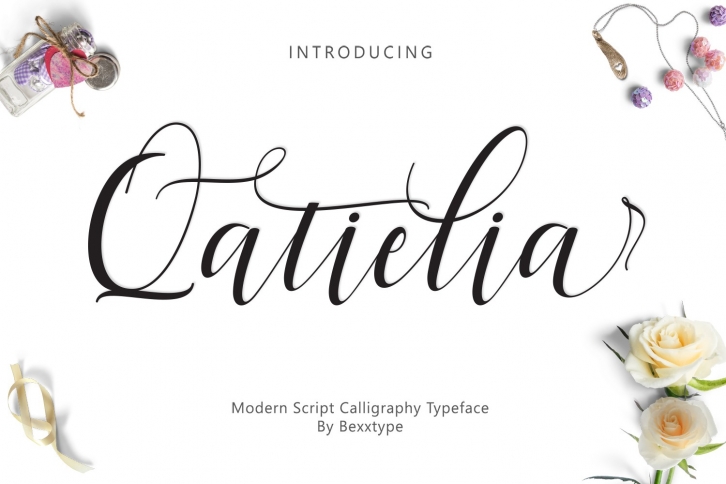
Qatielia Script is a gorgeous font that was realeased on July 19, 2018. The font can be used in many style contexts and design environments. Perfect for invitations, magazines, websites, logos, and more! It was designed by Bexxtype and the file size is 14.63 MB. Thanks for checking out this font!